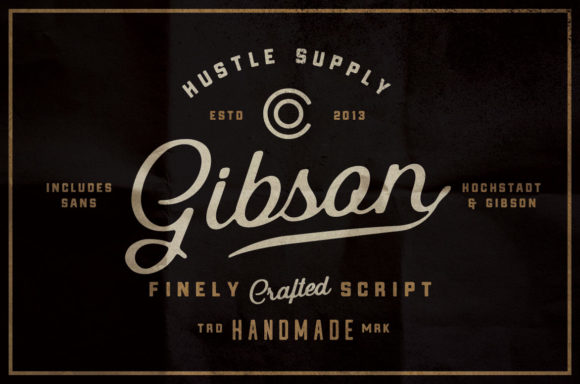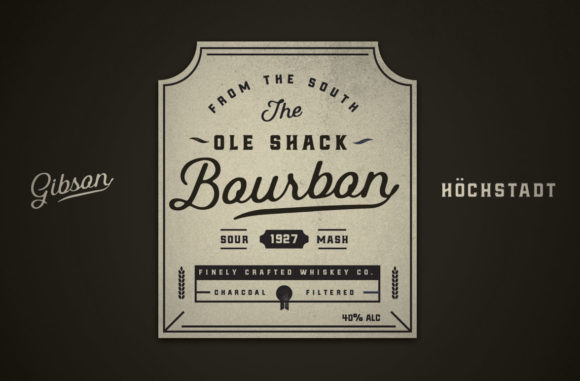
About Gibson Font
Gibson is a modern and stylish handwritten font carefully created with a touch of elegance. This is a beautiful combination of timeless elegance and authentic calligraphy. It features an incredibly classic style, while still keeping a friendly feel. Gibson is the perfect font for making original and outstanding designs.